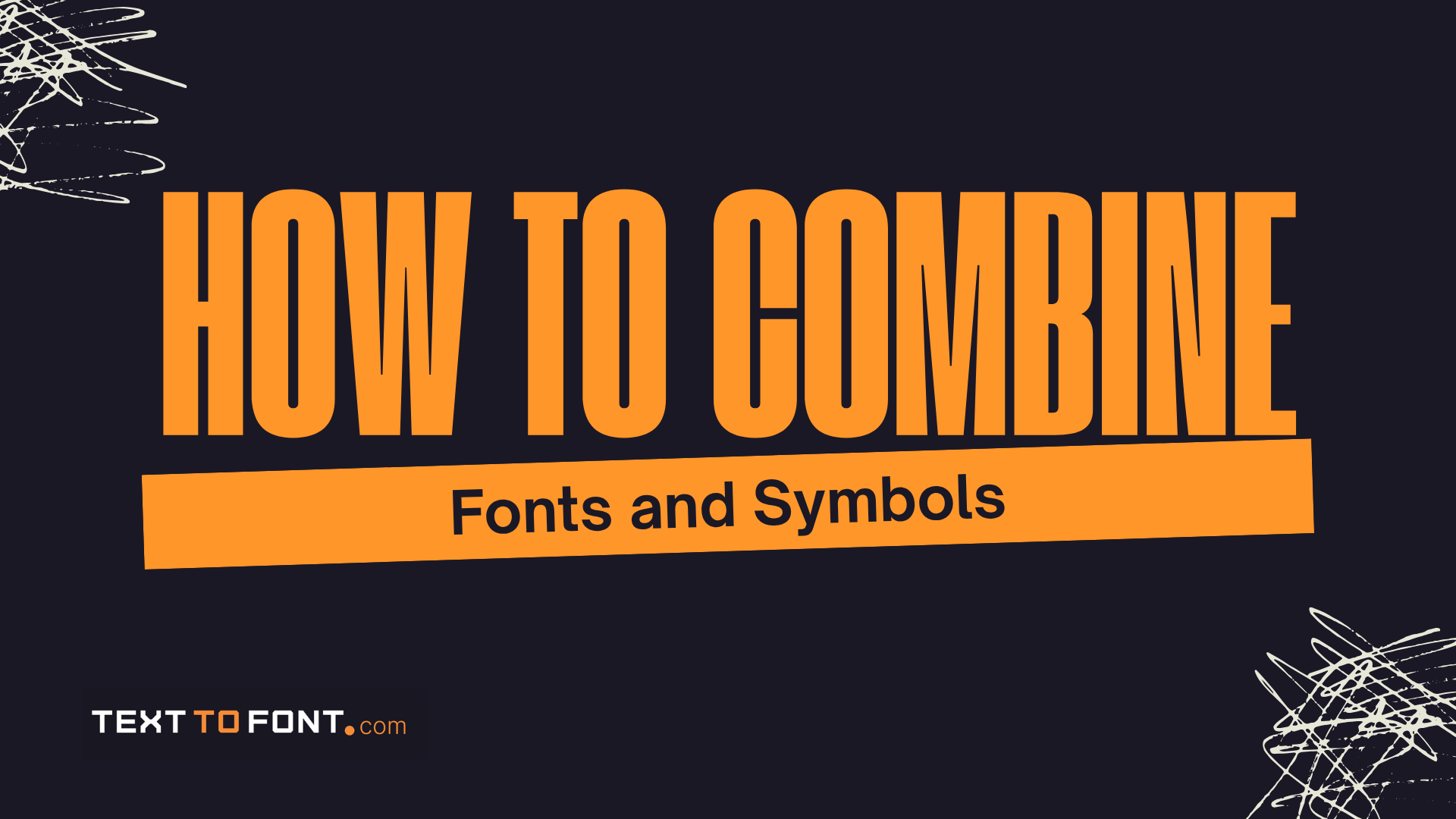
Fonts and symbols play an important role in how your text looks online. Whether you are creating social media posts, gaming usernames, or profile bios, combining different font styles with symbols can help your content stand out. When used properly, they make your text more attractive, easier to read, and more engaging for viewers.
However, using them without a clear approach can make your content look messy or hard to understand. In this guide, you will learn how to combine fonts and symbols in a simple, balanced, and effective way for better results across different platforms.
Combining fonts and symbols works because it improves how people see and understand your content. Online platforms are full of text, so using different styles helps your content stand out quickly.
One key benefit is visual hierarchy. When you use a bold or stylish font for important words and simple text for the rest, readers can easily focus on what matters most. Symbols can also act as markers to guide attention.
It also adds visual appeal. Clean symbols and well-chosen fonts make your content look more polished and interesting, which increases the chances of people stopping to read it.
Another reason is uniqueness. Many users post similar content, but combining fonts and symbols helps you create a distinct style. This is especially useful for usernames, bios, and branding.
Using fonts and symbols the right way is about balance. The following tips will help you keep your text clean, readable, and visually appealing across different platforms.
The main purpose of using fonts and symbols is to improve your text, not make it harder to understand. If your content is difficult to read at a glance, most people will skip it. Always choose font styles that remain clear and leave enough spacing between words and symbols.
Symbols are meant to enhance your content, not overwhelm it. When too many symbols are used together, the text starts to feel cluttered and distracting. A simple and balanced approach usually looks more appealing and professional.
Using multiple font styles in a single line can make your content look inconsistent and unorganized. It is better to choose one main font style and use it throughout your text to maintain a clean and cohesive look.
Symbols can help organize your content and make it easier to scan, especially in bios, captions, or lists. They act as visual separators that guide the reader through different parts of your text.
Your choice of fonts and symbols should match the platform and audience. Decorative styles may work well for gaming or casual content, while simpler styles are more suitable for professional or formal use.
Spacing plays an important role in making your text look clean and readable. Without proper spacing, even good font and symbol combinations can appear crowded and difficult to follow.
Highlighting every word reduces the impact of your message. Instead, focus on styling only the most important words so they stand out clearly and guide the reader’s attention.
Combining fonts and symbols is most effective when applied in places where your text needs to stand out or be memorable. Knowing where to use them ensures your content looks polished and appropriate for the platform and audience.
Fonts and symbols can make your social media profiles or bios more eye-catching and personal. They help convey personality, emphasize important details, and make your profile easier to remember.
In gaming, unique usernames grab attention and make your presence memorable. Strategically using fonts and symbols can make names dynamic while keeping them readable.
Stylized fonts and symbols can help captions and posts stand out in busy feeds. They draw attention to key points, phrases, or calls-to-action without overwhelming the reader.
Using fonts and symbols in titles or descriptions can help your content catch the eye in search results or suggested videos. It improves visual appeal while maintaining clarity.
Fonts and symbols can make statuses, nicknames, and bios on messaging platforms more visually appealing. They help you express style or mood, making your text stand out in chats or communities.
In banners, logos, or marketing visuals, fonts and symbols can emphasize key information and create a cohesive, recognizable style. They enhance visual hierarchy and brand identity.
Most common fonts and symbols display correctly on major platforms, but some special symbols may not appear everywhere. Always test your text to make sure it looks right on different devices.